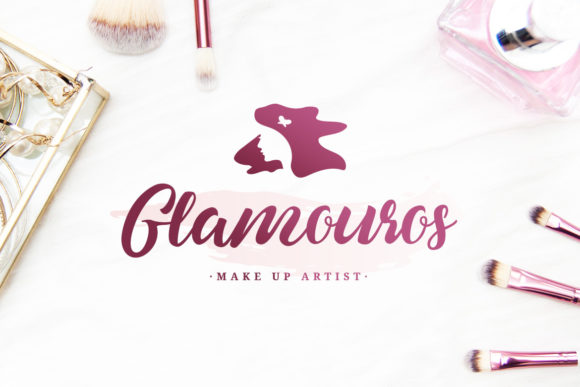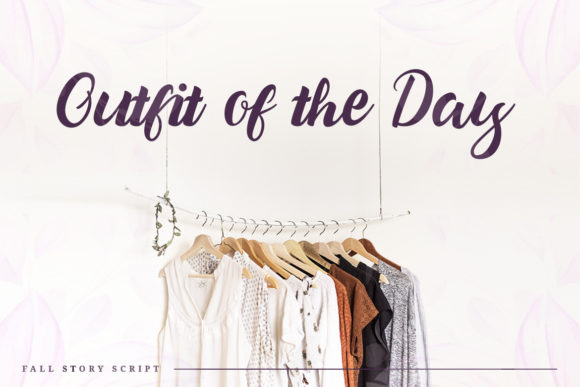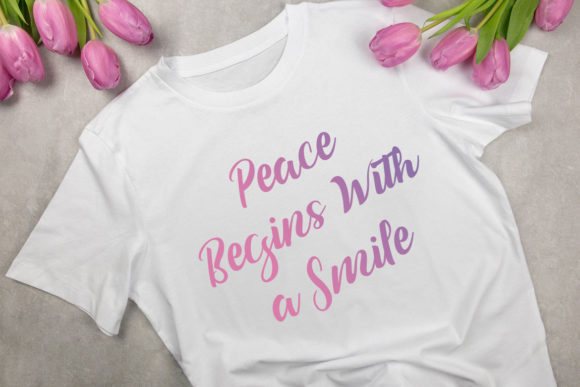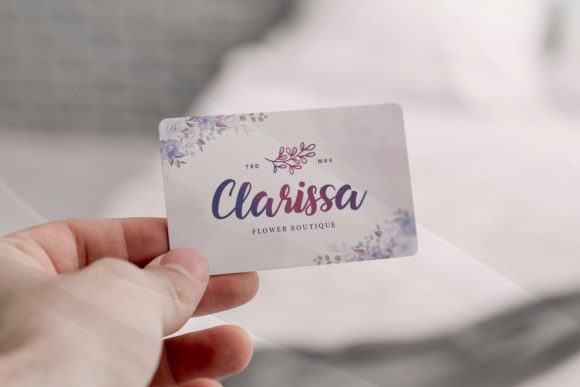
About Fall Story Font
Fall Story is a stylish and incredibly elegant script font. It looks stunning on wedding invitations, thank you cards, quotes, greeting cards, logos, business cards and every other design which needs a handwritten touch.